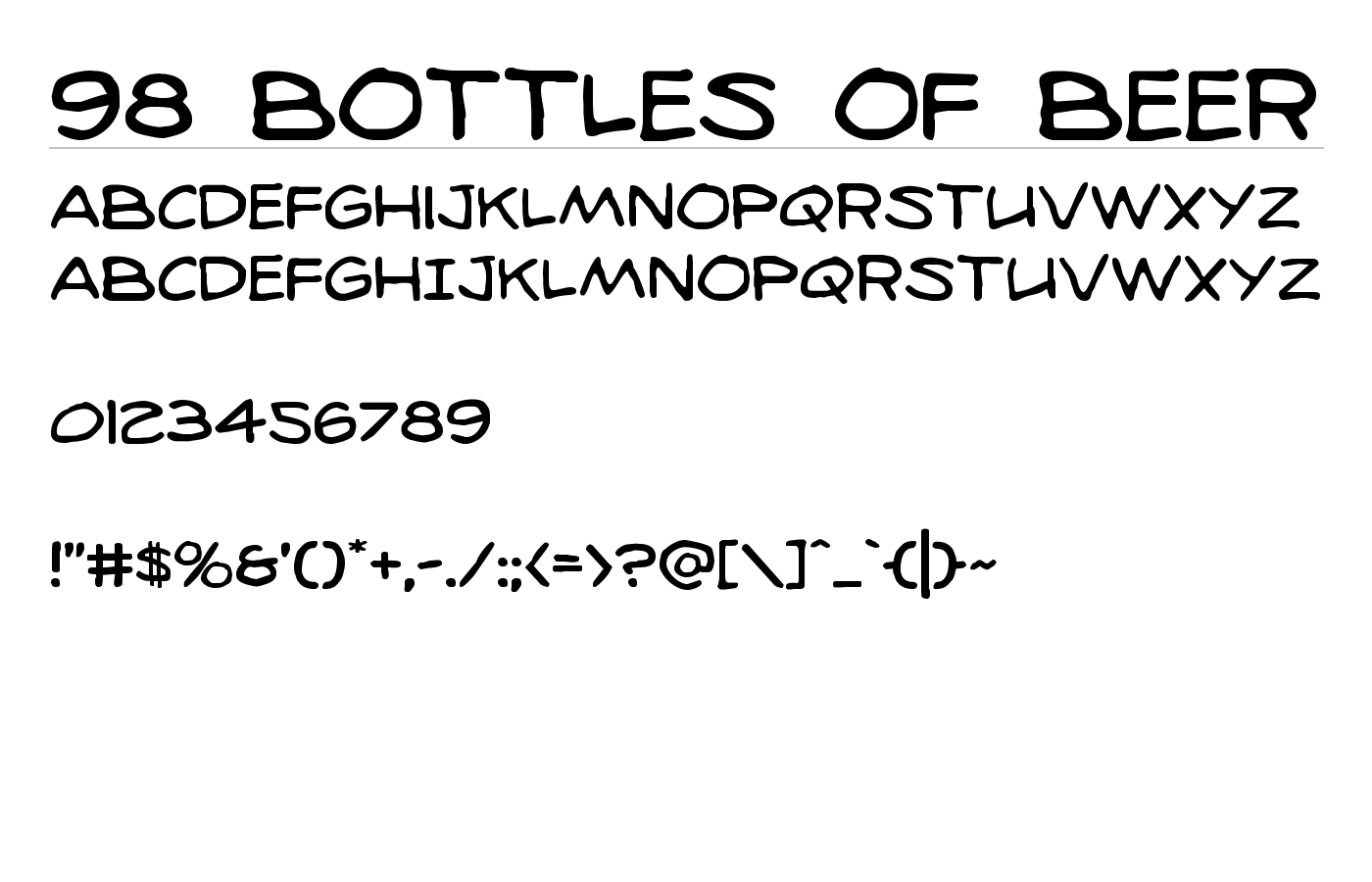
98 Bottles of Beer is a playful, casual sans serif font with an informal handwritten style, featuring rounded, slightly uneven strokes that give it a friendly, approachable feel. Its moderate weight and legible characters work well for fun, informal designs such as posters, social media graphics, and children’s materials where a relaxed and energetic mood is desired. This font adds a lively, hand-drawn charm that makes text feel personal and engaging without sacrificing readability.
98 Bottles of Beer Font
About 98 Bottles of Beer Font